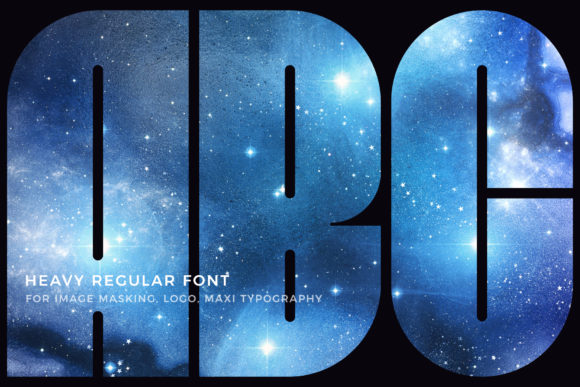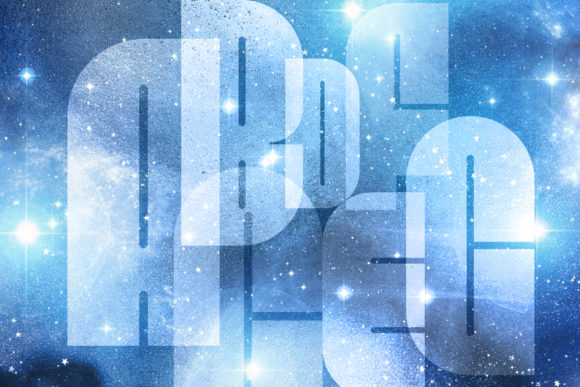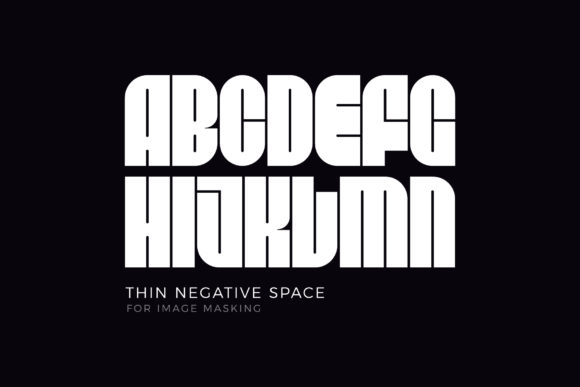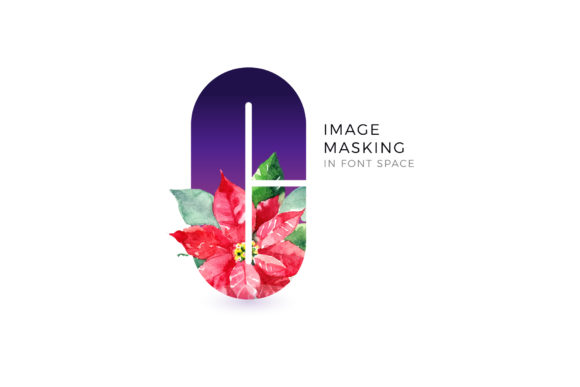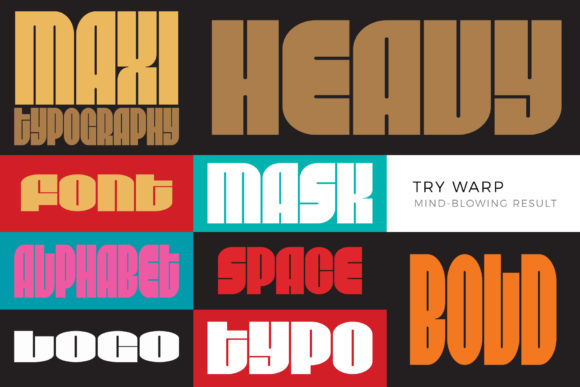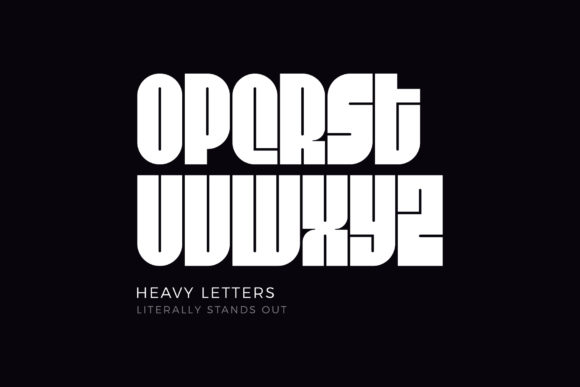
Introduction to Logo Font
Logo is a bold and chunky lettered display font.
Modern and interesting, this font will make each of your designs come alive .